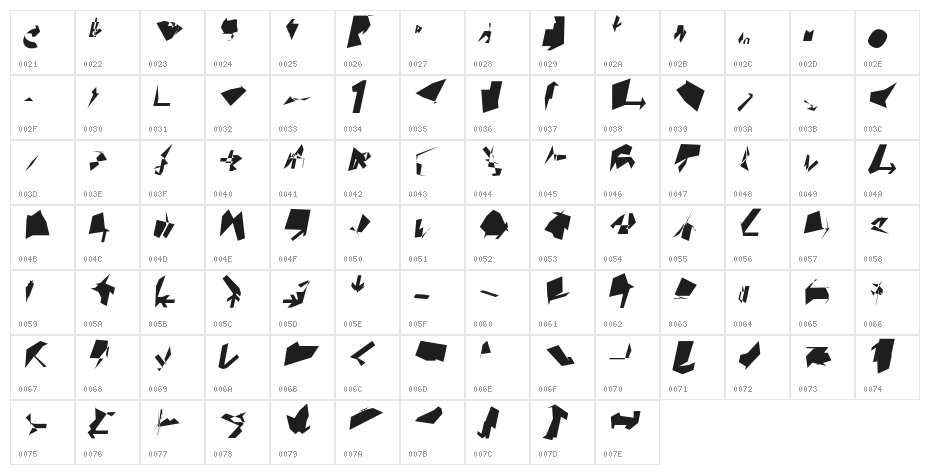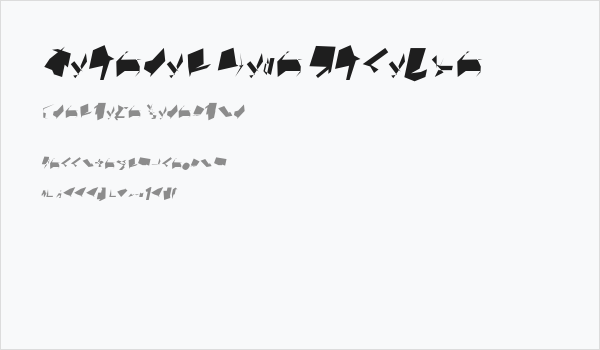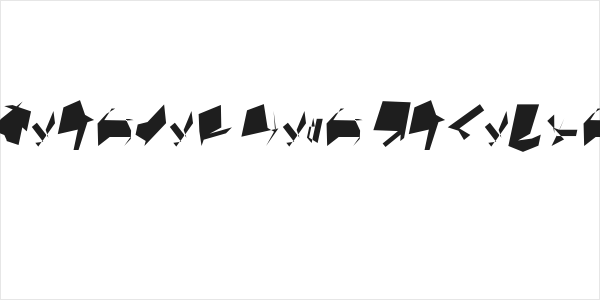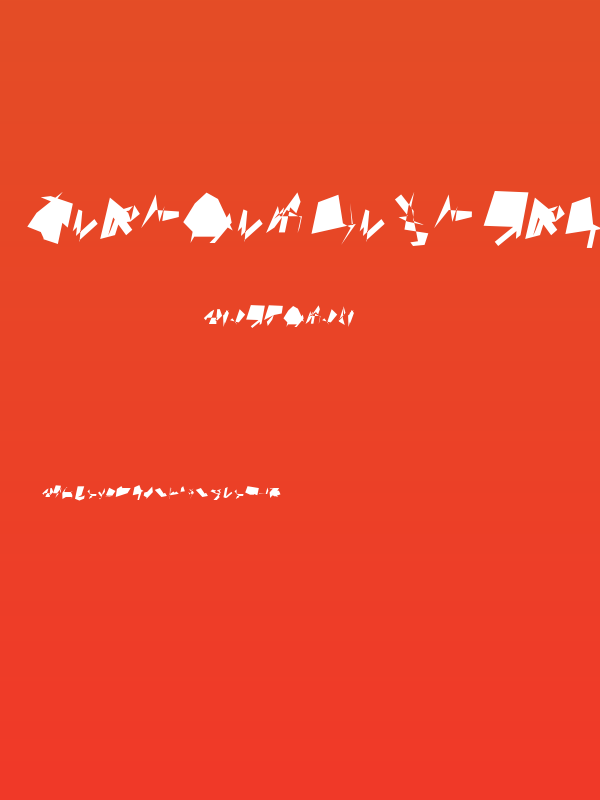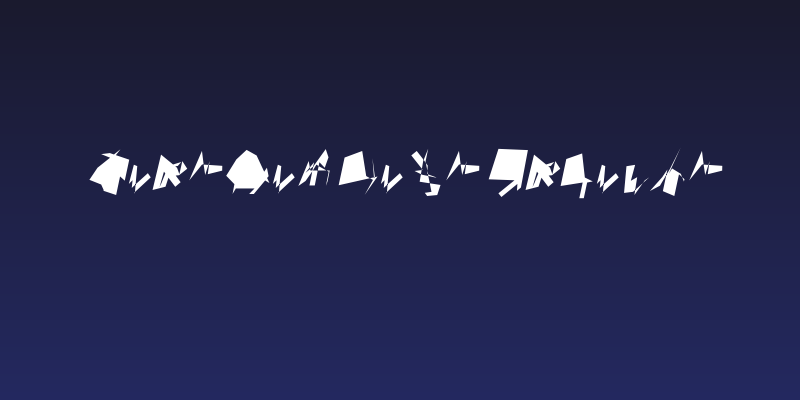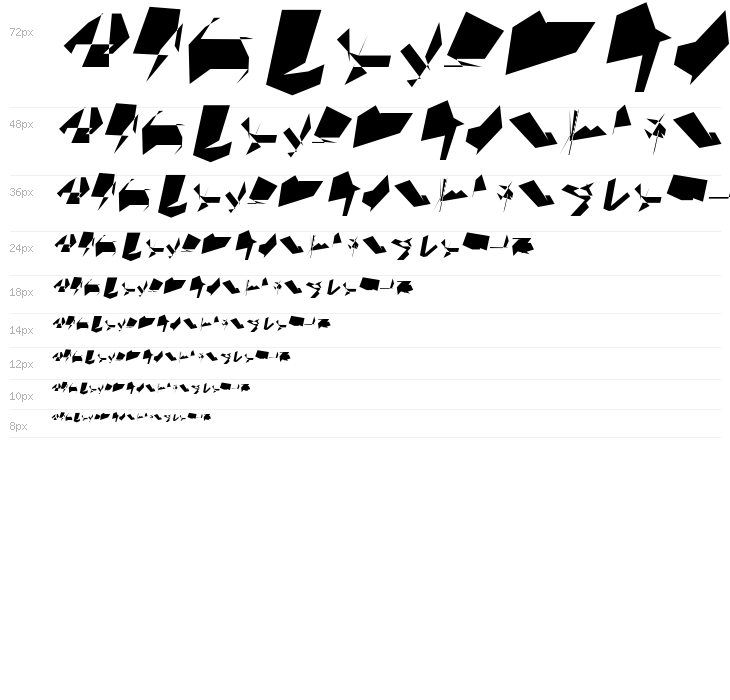
Siberia Wide Oblique Font
Siberia Wide Oblique Description
This font features an abstract and fragmented design, with each character appearing as a collection of sharp, angular shapes. The letters are highly stylized, giving an impression of shattered glass or jagged edges. This unique style creates a sense of movement and dynamism, as if the characters are in motion. The font is oblique, adding to its dynamic appearance. The overall aesthetic is bold and unconventional, making it suitable for projects that require a strong visual impact. The characters are wide, enhancing their presence on the page.
| Proposed Projects | Ideal for avant-garde posters, album covers, or any project needing a bold, artistic statement. |